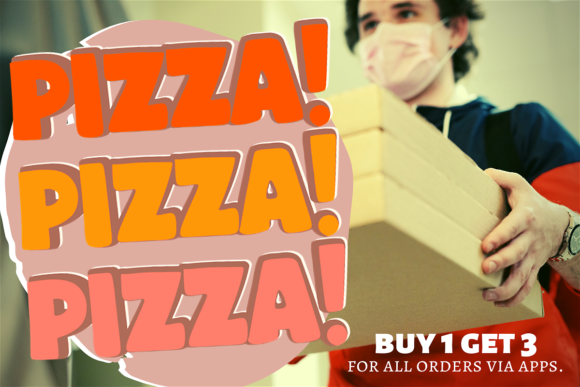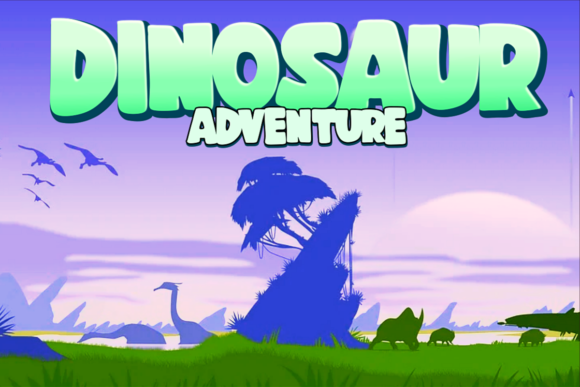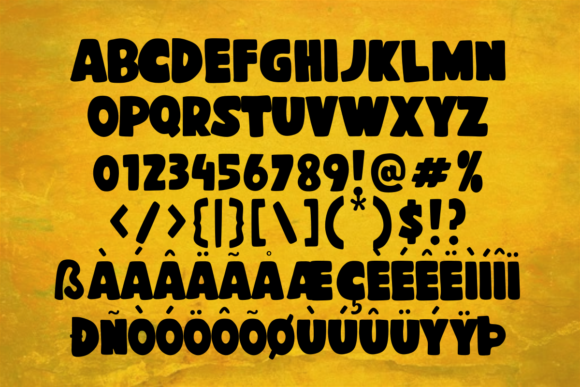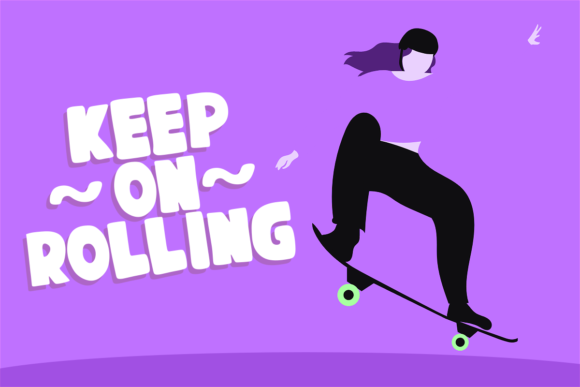
Introduction to Cheese Butter Cream Font
Have you ever stared at a blank canvas, struggling to find the perfect font to bring your creative project to life? We’ve all been there – the blank page staring back at us, a seemingly insurmountable hurdle to our artistic vision. But what if I told you there’s a font that can change all that? A font so unique, so versatile, that it can elevate even the most mundane ideas to new heights.
Enter the Cheese Butter Cream Font, a masterfully designed display font that’s sure to become a favorite among designers. With its high-quality design and transparent background, this font is a game-changer for any creative project. Whether you’re working on a poster, merchandise, product packaging, comic, cartoon, or social media graphic, the Cheese Butter Cream Font has got you covered.
Key Features of Cheese Butter Cream Font
- Unique, hand-crafted design elements featuring a blend of creamy textures and rich, buttery tones.
- Perfect for use in graphic design, digital art, and print projects where a high-end, gourmet aesthetic is desired.
Honest Review: Cheese Butter Cream Font
One thing that works well for the Cheese Butter Cream Font is its high quality design. The font is crisp, clean, and visually appealing, making it a great addition to any design project. It also features a transparent background, which is perfect for overlaying on top of images or other design elements.
Here are some of the key features that I like about the Cheese Butter Cream Font:
- Wide range of creative possibilities
However, I do have to mention a few limitations. ⚠️ The font is not as versatile as some other design resources, and it may not be suitable for all types of creative projects.
Overall, I’m impressed with the Cheese Butter Cream Font and would definitely recommend it to designers looking for a high-quality, free font to add to their design arsenal. It’s a great resource to have in your toolkit, and I’m excited to see how it can elevate my future creative projects. ✨
The Cheese Butter Cream Font is a high-quality design resource perfect for any creative project. With its unique and playful style, this font is ideal for adding a touch of elegance to your designs.
Tips for Getting the Most Out of Cheese Butter Cream Font
Here are a few tips for getting the most out of the Cheese Butter Cream Font:
- Use it for headings and titles to add a touch of elegance to your designs.
- Combine it with other fonts to create a unique and eye-catching font combination.
- Experiment with different font sizes and styles to create a visually appealing design.
The Cheese Butter Cream Font is perfect for a variety of creative projects, including:
- Business cards and marketing materials.
- Blog posts and articles.